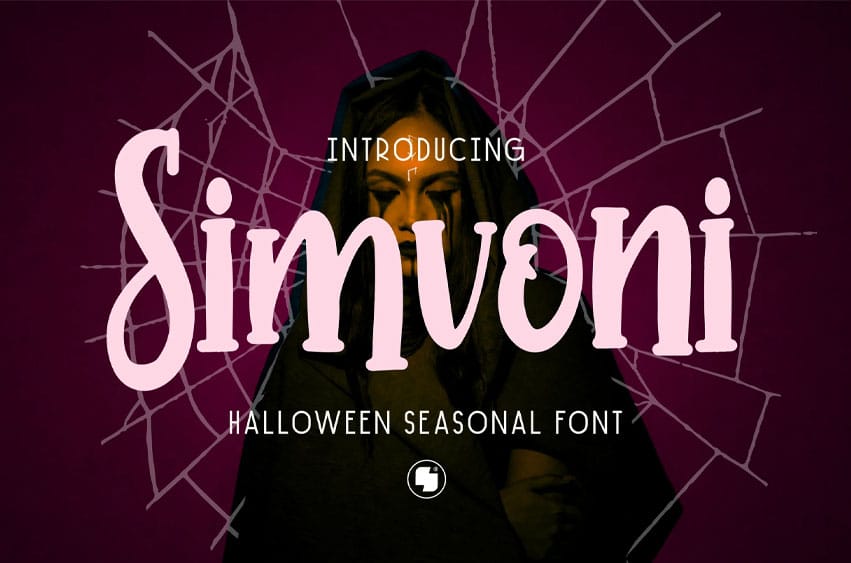
Simvoni Font is a graceful Halloween display font shaped by flowing strokes, unusual curves, and an enchanting handcrafted rhythm. Its subtly creepy character creates a striking impression on a horror movie title, scary poster, spooky invitation, monster-themed artwork, product packaging, book cover, and seasonal branding.
Simvoni captures the beauty of an ancient witch spell wrapped in evil, mystery, and whispers of death. Blending witchy elegance with a distinctive gothic mood, it is perfect for thriller promotions, supernatural stories, haunted events, dark editorials, fantasy logos, and magical Halloween projects.